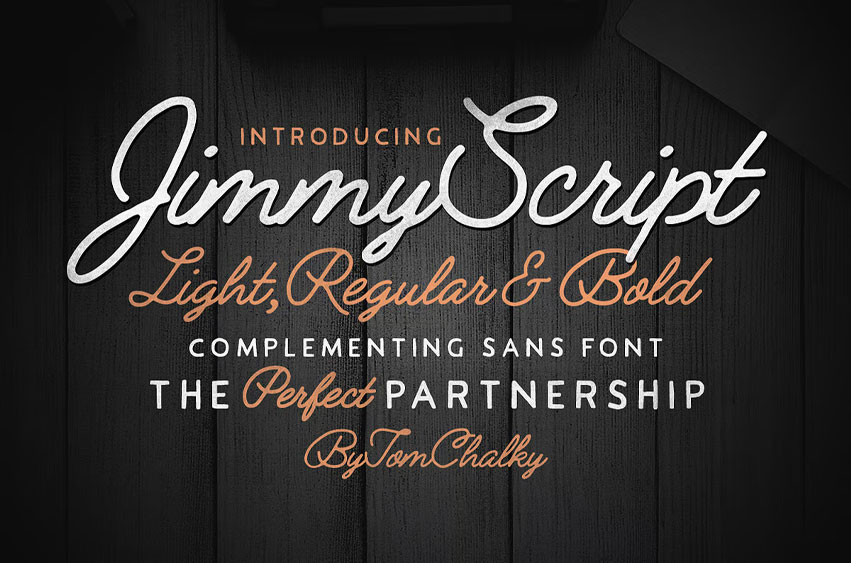
Jimmy Font family includes a handcrafted script font (Light, Regular, and Bold weights) and a perfectly complementing all-caps Sans (Regular and Bold weights).
The styles of both Jimmy Script and Jimmy Sans were inspired by the modern vintage trend that is sweeping the design industry. Whilst the Script and Sans can be used effectively as separate fonts, they truly work their magic when combined!
Jimmy Script Font Family (Light, Regular, and Bold!)
Jimmy Sans Font Family (Regular and Bold!)
Multilingual Support
Sans = All Capitals